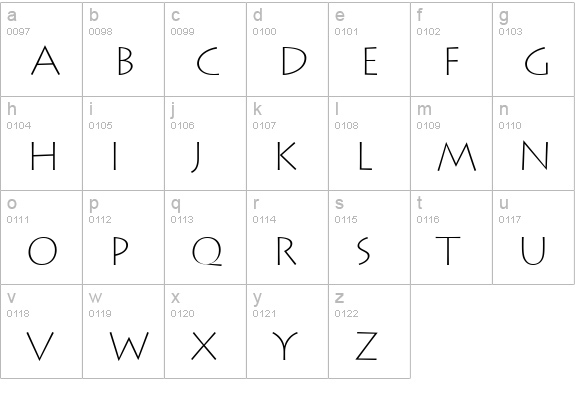
Austere Light SSi Extra Light Font Details
Austere Light SSi Extra Light is a refined, elegant variant in the Austere typeface family \xE2\x80\x94 well suited to elegant body text, refined sub-headings, and luxury branding.
Austere Light SSi Extra Light font is a sleek and modern typeface that exudes elegance and sophistication. With its minimalist design and delicate strokes, this font is perfect for adding a touch of refinement to any project. The austere yet stylish look of this font makes it a versatile choice for a wide range of design applications, from branding to editorial design. And the best part? Austere Light SSi Extra Light font is available for free download at FontsMarket.com. So go ahead and elevate your designs with this beautiful typeface without breaking the bank. Download now and start creating stunning visuals with Austere Light SSi Extra Light font.